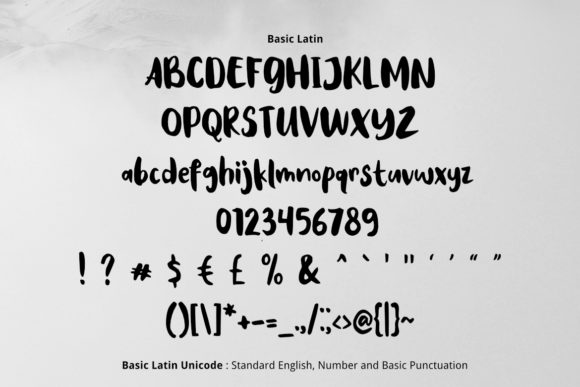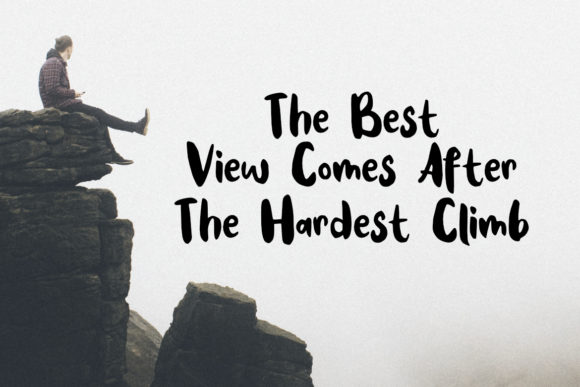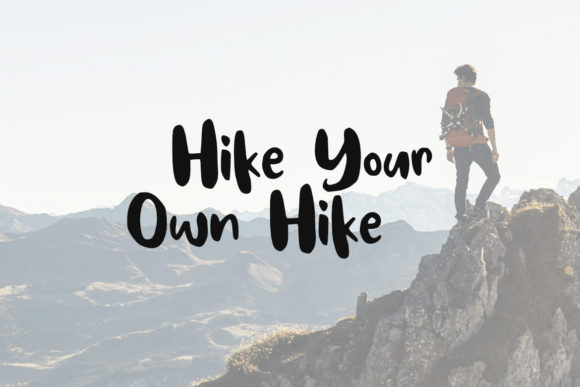
Introduction to Hike More Font
Have you ever found yourself pouring your heart and soul into a creative project, only to realize that the right font is missing to bring it all together? For designers, this is a common struggle. A font can make or break the aesthetic of a design, and finding the perfect one can be a daunting task. But what if I told you about a font that can add a touch of nostalgia and confidence to your designs?
Enter the Hike More Font, a bold and trendy handwritten font that exudes strength and dynamism. This high-quality font is a game-changer for designers looking to elevate their creative projects. Not only is it free to download, but it’s also a valuable design resource that can be used in a variety of contexts, from branding and marketing materials to digital art and more. With its transparent background, the Hike More Font is perfect for designers who want to add a touch of personality to their designs.
Hike More Font
- High-Quality Design: A beautiful, hand-drawn design perfect for creative projects requiring a unique touch.
- Unique Characteristics: The Hike More Font features a distinctive, hand-drawn style with subtle imperfections, adding a touch of personality to any design.
- Easy to Use: The font is highly legible and easy to read, making it perfect for a wide range of creative projects, from logos to brochures.
Honest Review: Hike More Font
I recently had the opportunity to test out the Hike More Font for a creative project and was pleasantly surprised by its high quality and versatility.
- ✨ Clear and crisp typography that’s perfect for outdoor-themed designs
- ⚠️ Limited character set, which may not be suitable for extended text-based designs
Overall, I’m impressed with the Hike More Font as a design resource. The free download is a great perk, and the font’s high quality and customizability make it a valuable asset for any creative project.
While it may not be perfect, the Hike More Font is a solid choice for designers looking to add a touch of outdoor flair to their work.
Hike More Font
Hike More Font is a high-quality, free design resource perfect for any creative project. This versatile font is ideal for outdoor enthusiasts, nature lovers, and anyone looking to add a touch of adventure to their design.
Getting the Most Out of Hike More Font
For the best results, use Hike More Font with a transparent background to give your designs a clean and modern look. Experiment with different font sizes and styles to add depth and visual interest to your project.
Hike More Font is perfect for:
- Outdoor-themed designs, such as hiking trails, camping, and nature-inspired graphics
- Adventure travel and tourism promotions
- Outdoor gear and equipment marketing materials
Alternatives to Hike More Font
Adventure Sans
Adventure Sans is a free, high-quality font perfect for designers working on a creative project that requires a unique and adventurous feel. It’s ideal for use in outdoor-themed designs, such as hiking trails or adventure travel websites. Adventure Sans offers a clean and modern design, making it a great alternative to Hike More Font for designers who want a more versatile font.
Compared to Hike More Font, Adventure Sans has a more minimalist design and a wider range of weights, making it easier to customize for different design needs.
Mountain Modern
Mountain Modern is a modern, high-quality font designed for use in outdoor-themed designs, such as hiking trails or adventure travel websites. It’s a great alternative to Hike More Font for designers who want a more sophisticated and elegant design. Mountain Modern offers a transparent background, making it easy to use in designs that require a clean and minimalist look.